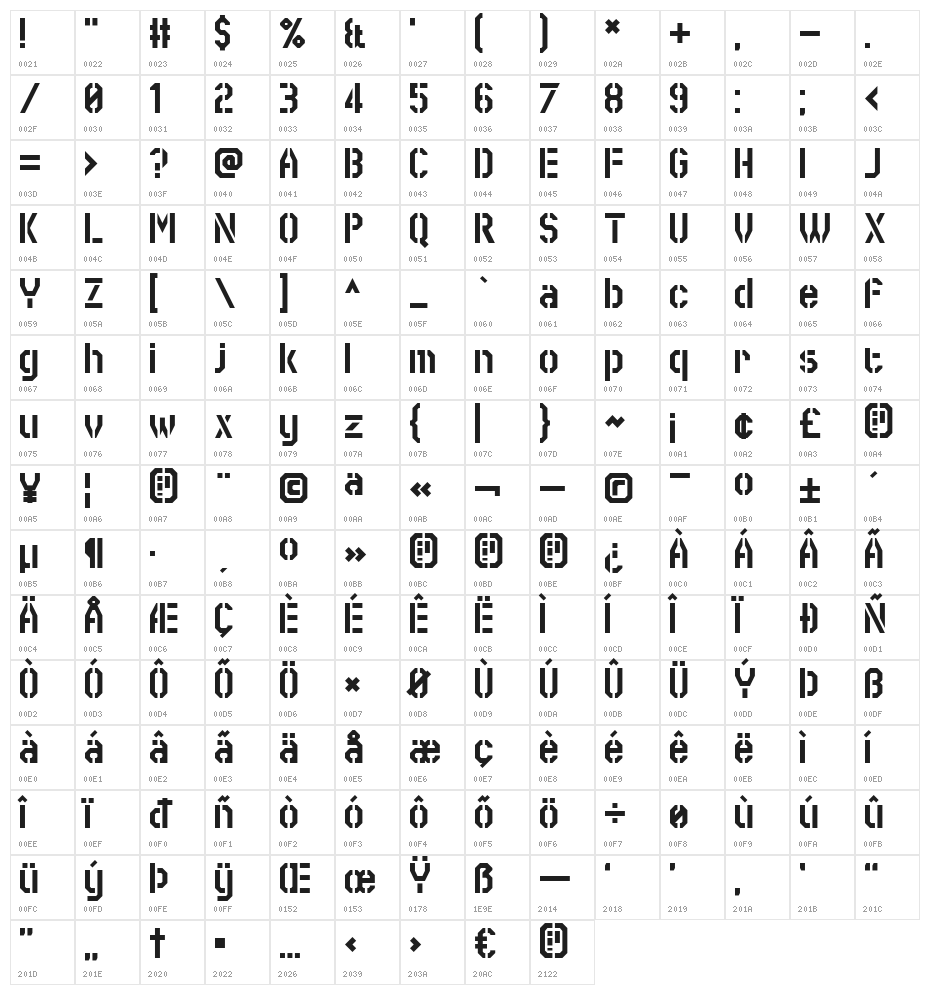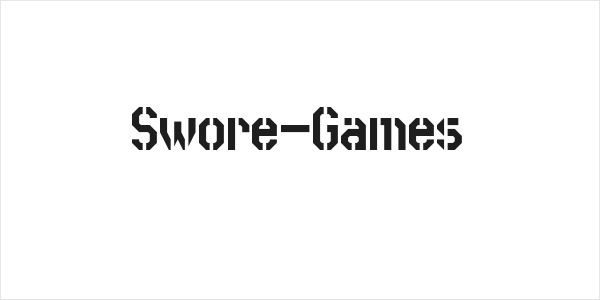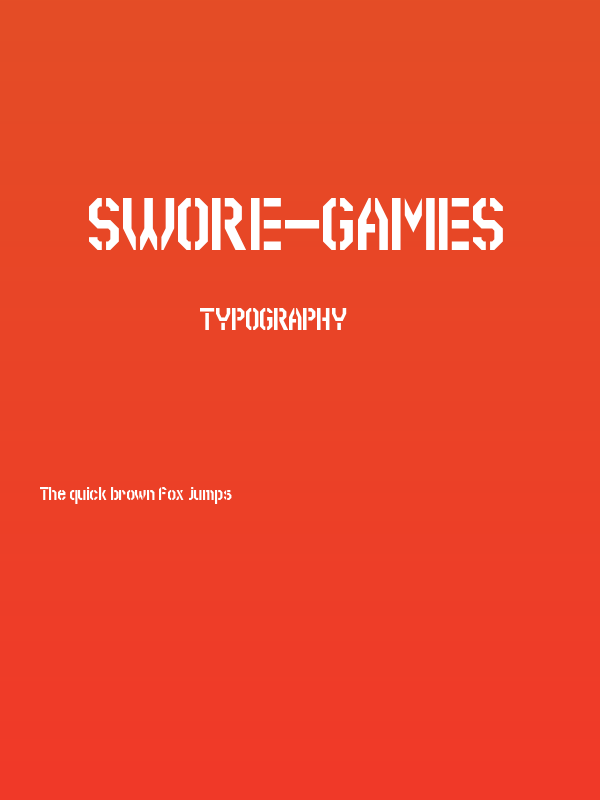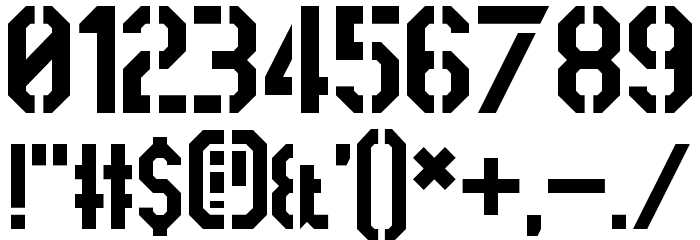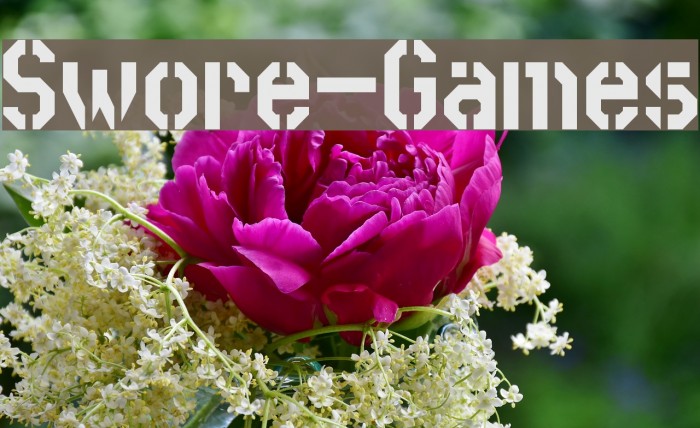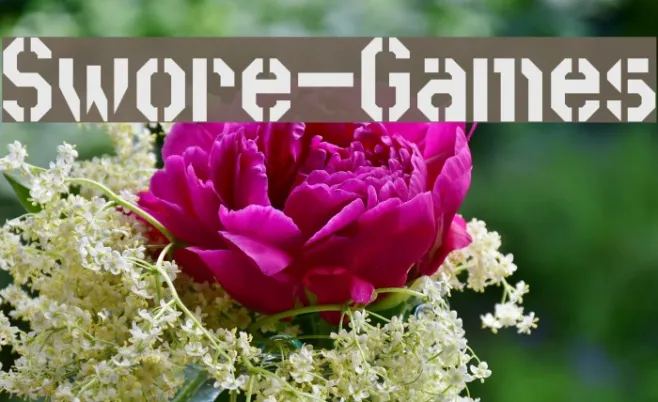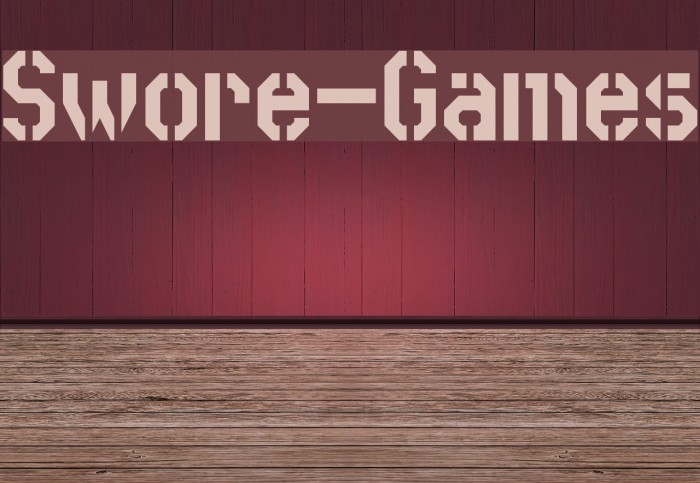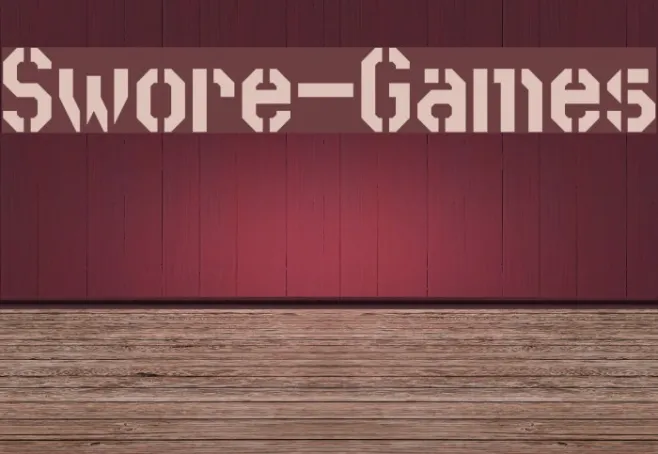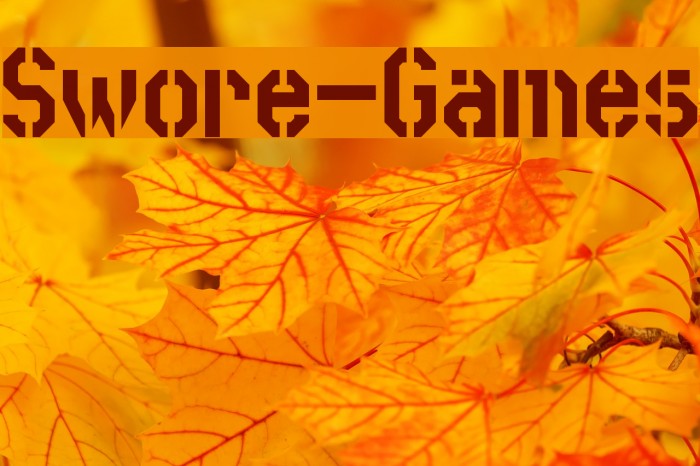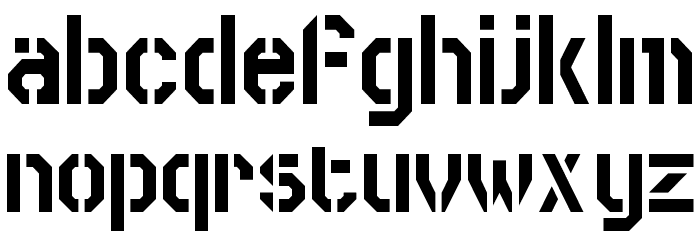
Swore-Games Font
Swore-Games Description
This font features a bold, geometric design with a distinctly modern and industrial feel. The characters are constructed with sharp angles and straight lines, giving them a mechanical and futuristic appearance. The uppercase and lowercase letters maintain a consistent style, with the lowercase being slightly more compact. Numbers and special characters follow the same angular design, ensuring uniformity across all glyphs. The font's unique style makes it stand out, ideal for projects that require a strong visual impact. Its boldness and geometric structure suggest a sense of strength and innovation.